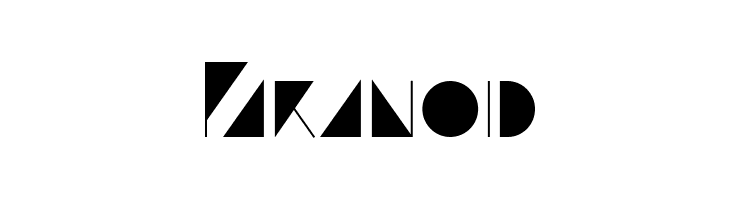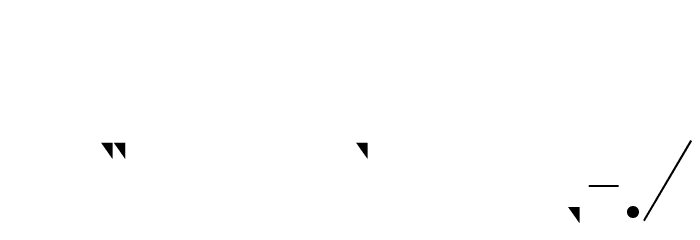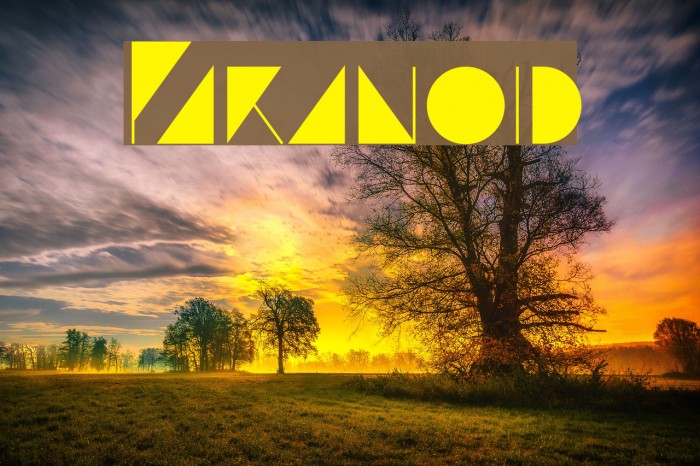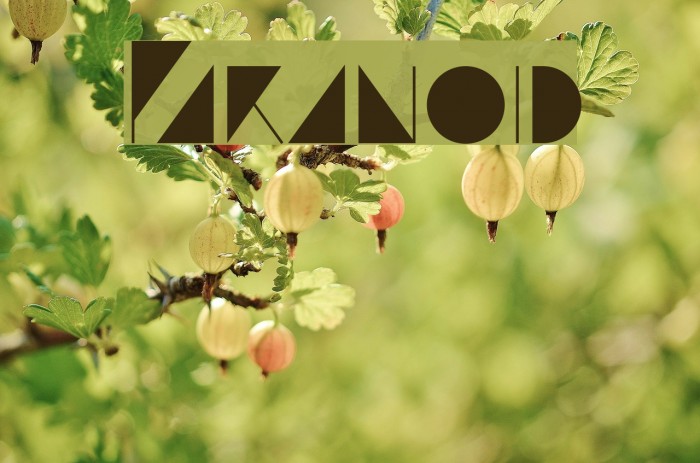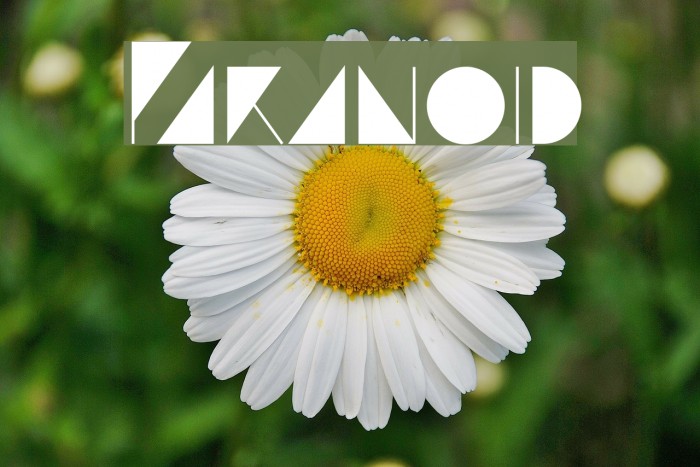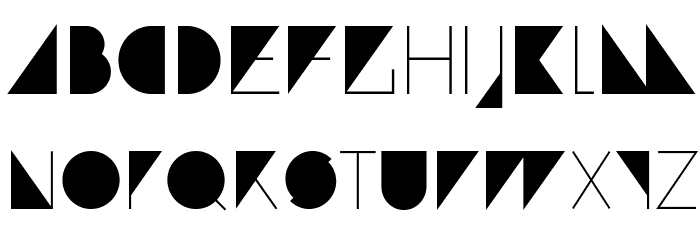
Paranoid Font
Paranoid Description
This font features a bold, geometric design with sharp angles and clean lines, creating a futuristic and avant-garde appearance. The uppercase letters are characterized by their triangular and circular shapes, giving a sense of symmetry and balance. The lowercase letters maintain this geometric style, with some letters appearing as abstract forms. The numbers and special characters follow the same design principles, ensuring consistency throughout. This font is highly stylized, making it ideal for projects that require a modern and edgy look.
| Proposed Projects | Ideal for branding, posters, album covers, and any project seeking a modern, edgy aesthetic. |